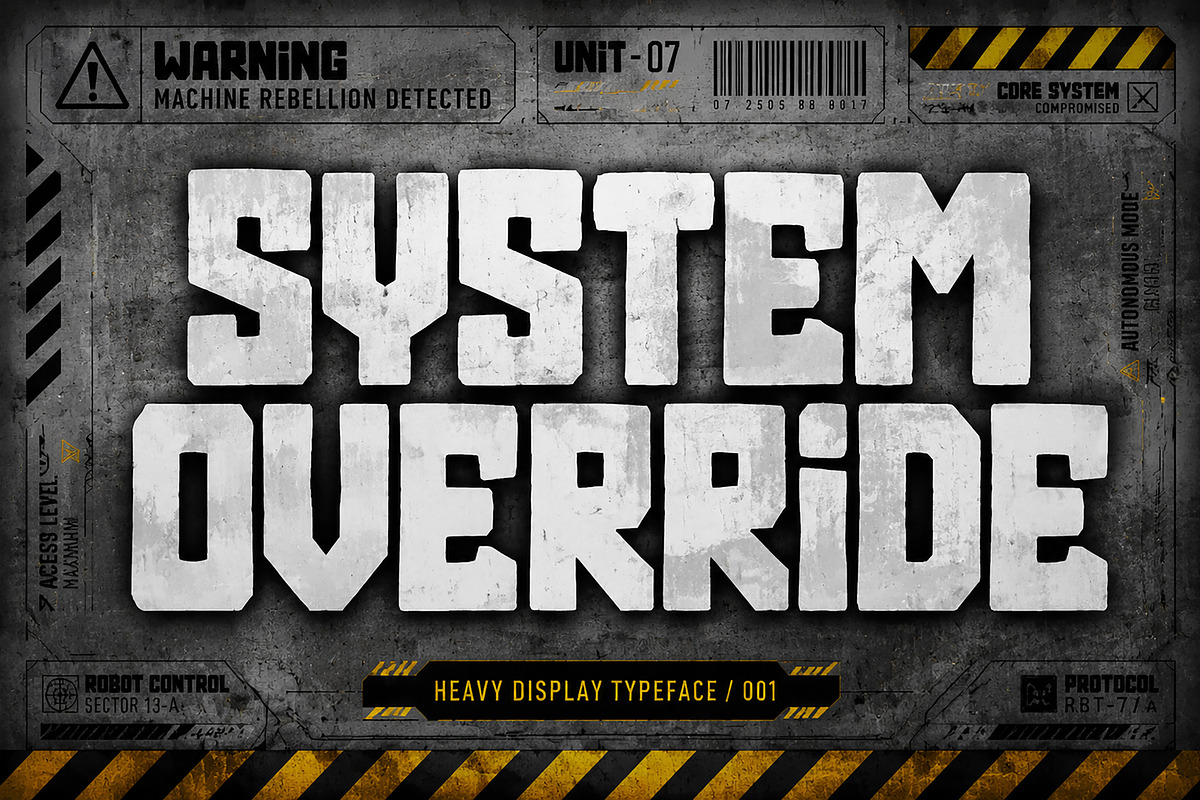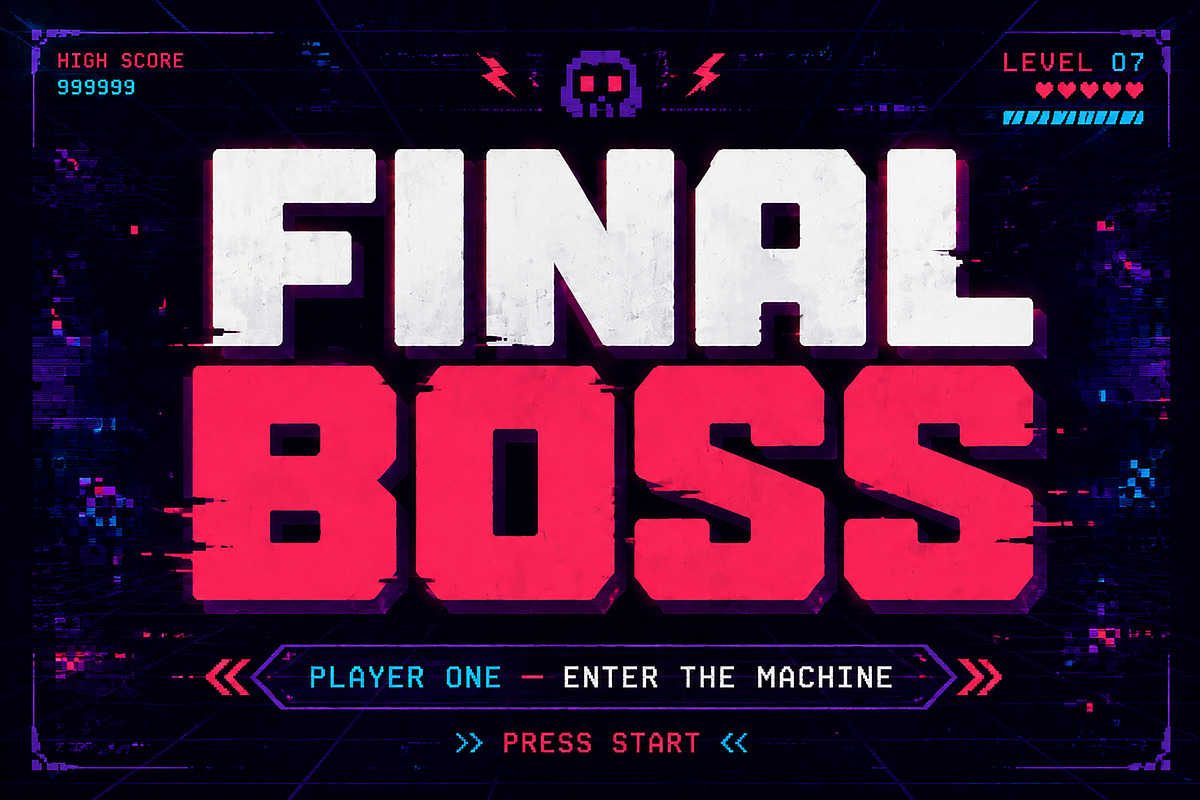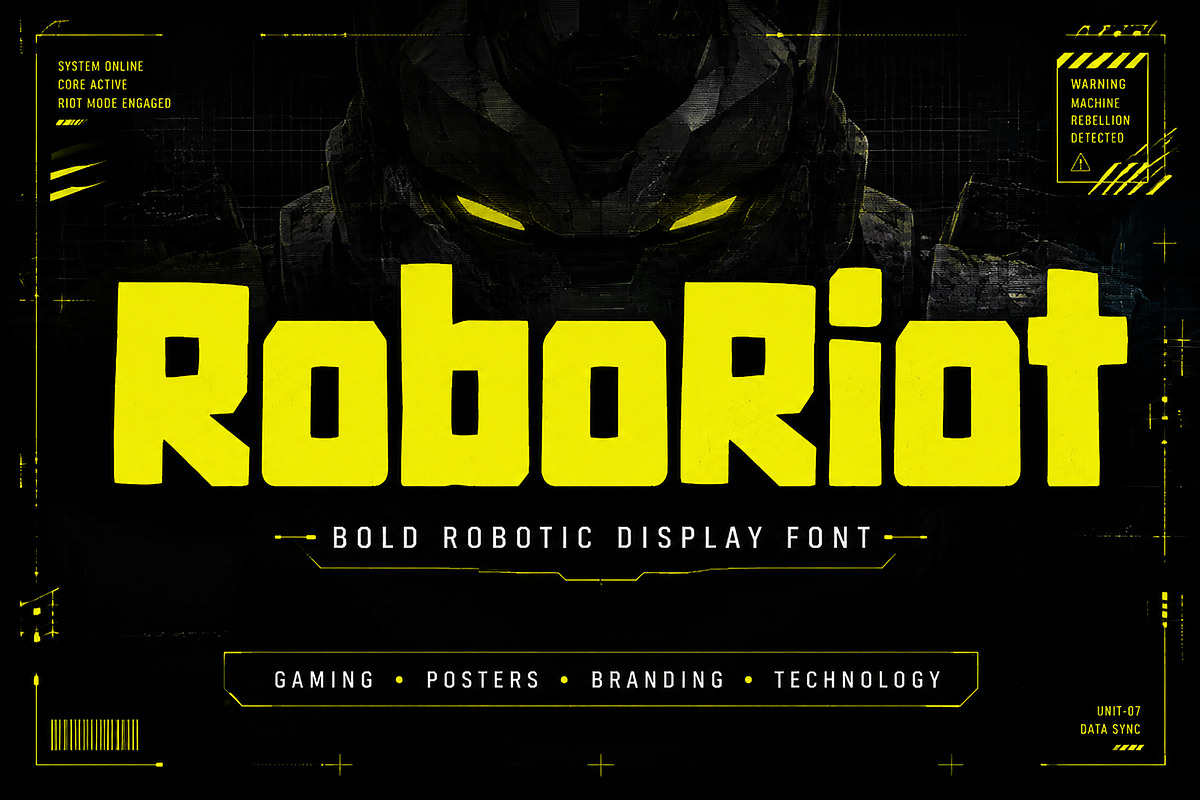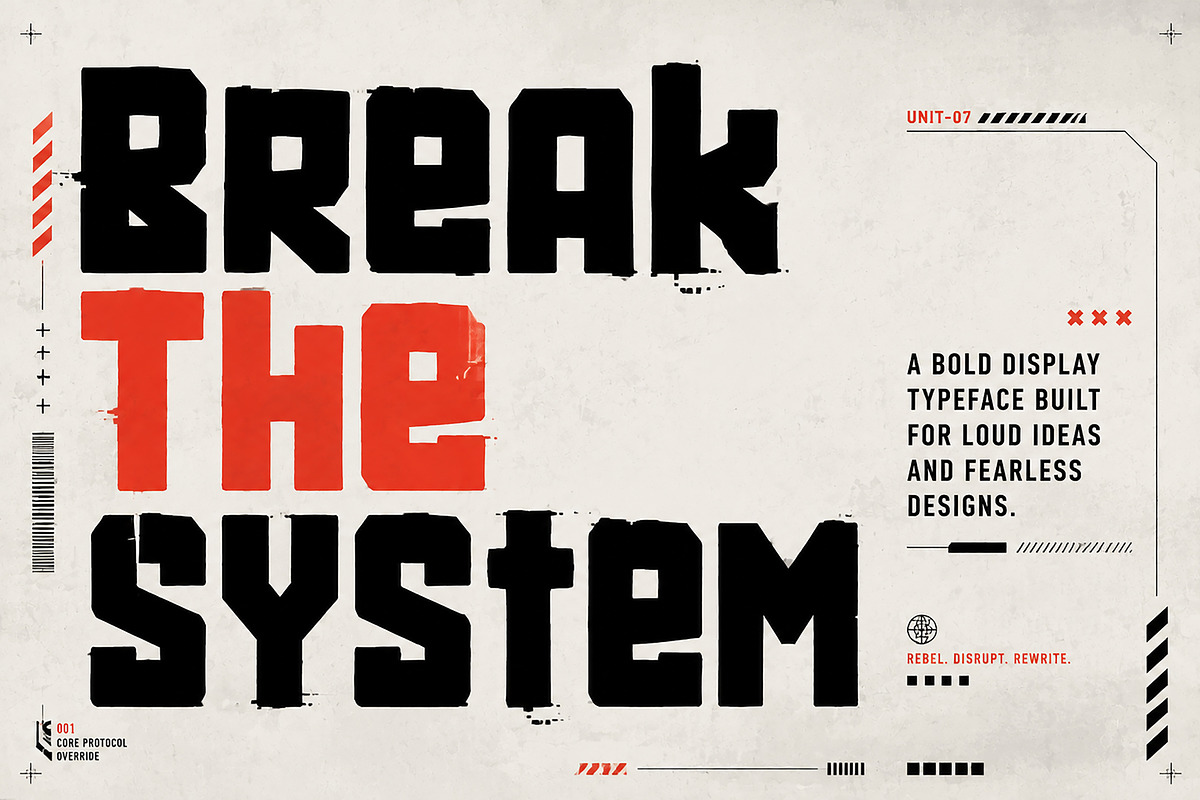
RoboRiot
RoboRiot – Bold Robotic Display Font
RoboRiot is a bold robotic display font designed to make your headlines impossible to ignore. Inspired by industrial machinery, futuristic technology, arcade games, and sci-fi aesthetics, this typeface delivers a strong, powerful, and rebellious visual impact.
With its handcrafted blocky letterforms and unique geometric shapes, RoboRiot is perfect for projects that demand attention. Whether you're designing gaming graphics, posters, branding, apparel, or social media content, this font brings a bold and futuristic personality to every design.
Its heavy-weight construction makes it ideal for large titles and display purposes while maintaining excellent readability.
Gaming Logos
Esports Branding
YouTube Thumbnails
Posters
Movie Titles
Tech Branding
Robot & Sci-Fi Projects
Apparel Designs
Streetwear Graphics
Packaging
Album Covers
Headlines
Advertising
Stickers
Banners
Digital Content
Bold Display Font
Robotic Style
Industrial Inspired Design
Handcrafted Letterforms
Strong Geometric Shapes
High Readability
Uppercase Letters